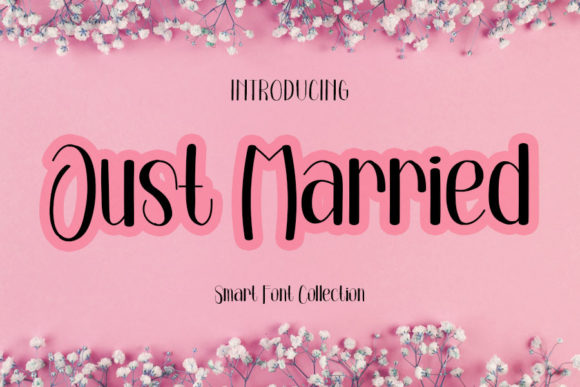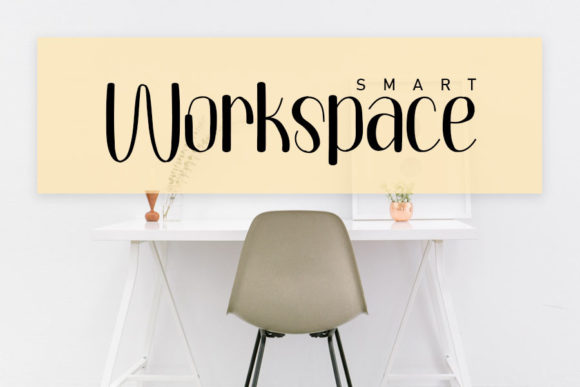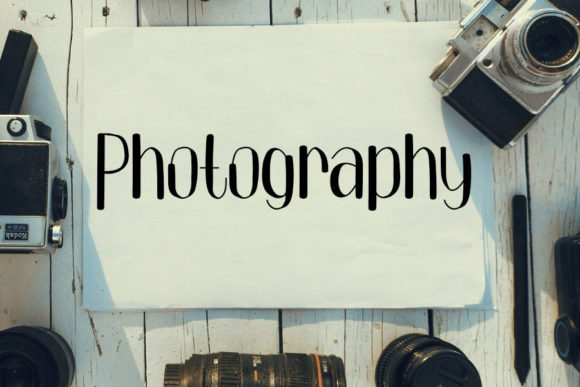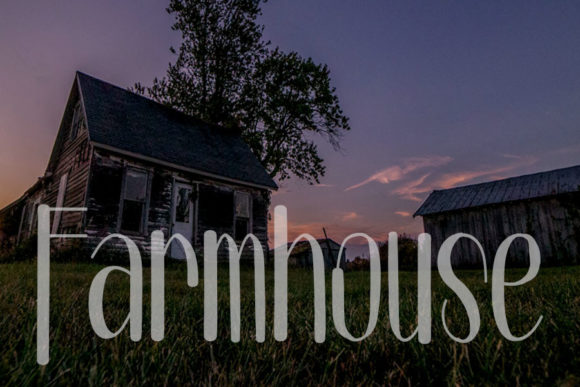
About Just Married Font
Just Married is a cute and clean handwritten font. No matter the topic, this font will be an incredible asset to your fonts’ library, as it has the potential to elevate any creation.